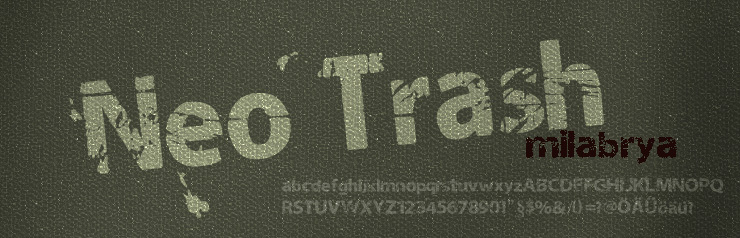
NeoTrash Bold by Yuliyan Ilev is a free eroded display font built from dense, blocky sans serif letters. Torn gaps, scraped edges, and broad missing patches cut through the forms, creating the look of ink damaged by peeling paper or a worn screen print.
Streetwear labels and skate brands suit its raw, damaged finish. For underground music events, it can turn gig posters and album packaging into part of a photocopied, scuffed punk collage rather than acting as neutral lettering.